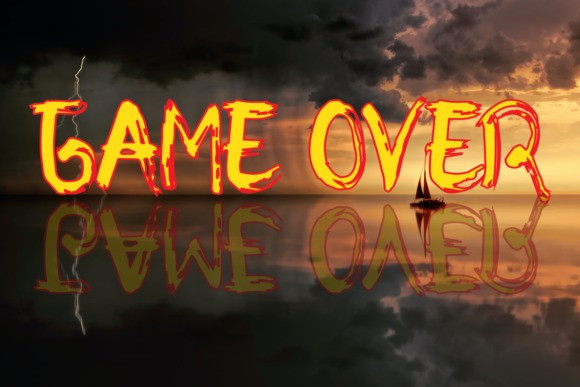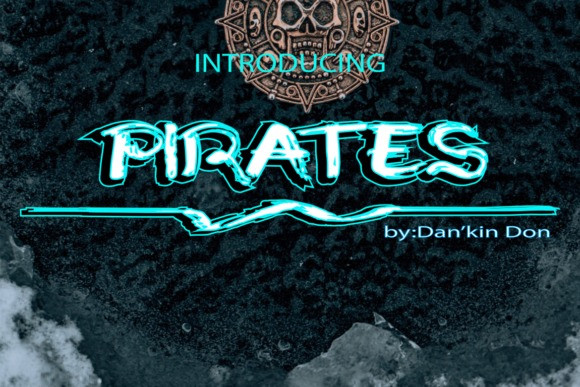
Pirates Font
Pirates Font is a mysterious and cool display font. Whatever the topic, this font will be a great asset to your font library, as it has the potential to enhance any creation. Use it for logos, posters, banners, covers, movies, music, and so much more.